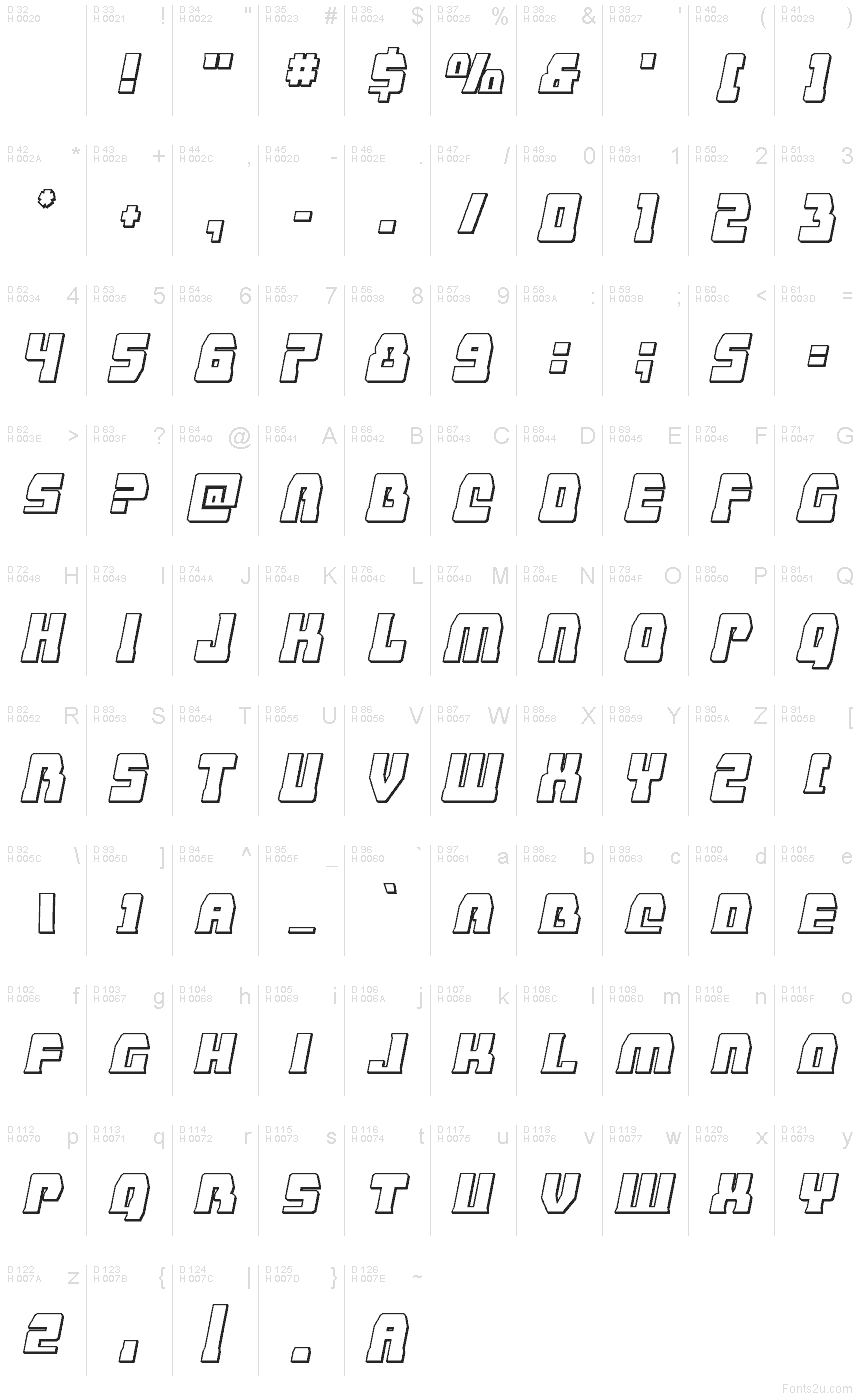
Librator 3D Italic
Librator 3D Italic font by Iconian Fonts is a display typeface with a strong bold geometric structure. It combines techno letter styles with italic effects in a 3D appearance that recalls futuristic labels and logos. The retro letters are well-outlined, structured, and even stylized in some cases.
The free bold font gives the chance to produce visual graphics for movie covers, children’s cards and posters, or tech-related product packaging ideas.